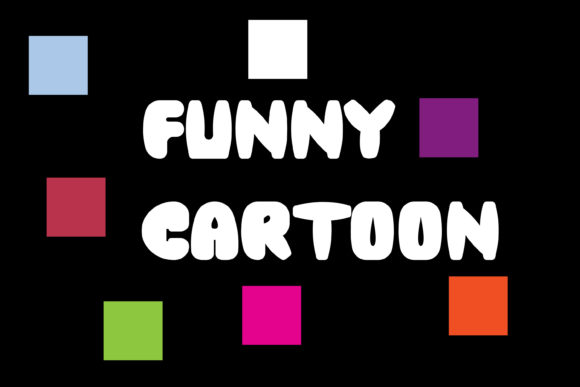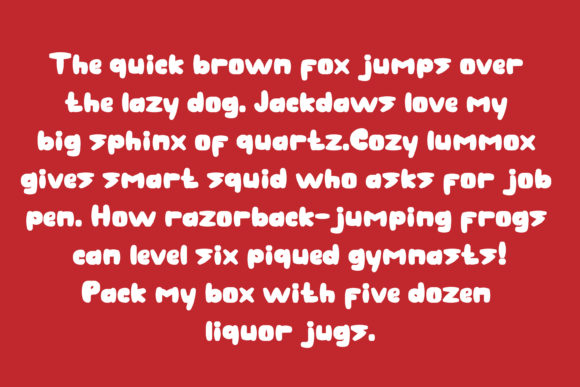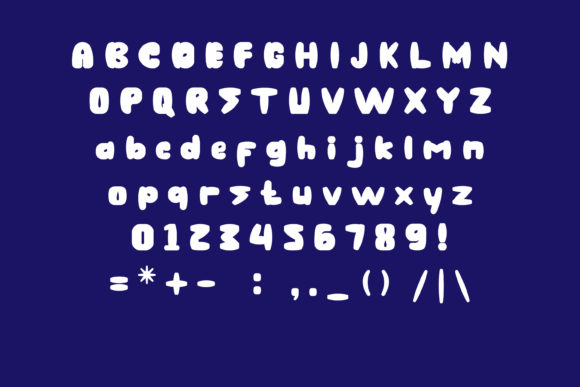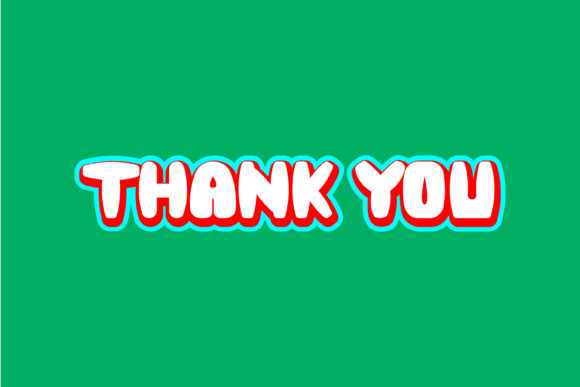
The Ultimate Guide to Ghemuck Font: A Cool, Robotic Display Font
I’ll never forget the time I was working on a project for a sportswear brand, and I just couldn’t find the right font to capture their edgy, high-tech vibe. The client wanted something bold, futuristic, and attention-grabbing, but everything I tried seemed to fall flat. That’s when I stumbled upon Ghemuck Font, and it was love at first sight! 💡
In this article, we’ll dive into the world of Ghemuck Font, exploring its features, uses, and everything in between. Whether you’re a designer, crafter, or creative hobbyist, you’ll learn how to make the most of this amazing font.
An Honest Review of Ghemuck Font
What I Love About Ghemuck Font
- ✨ Unique and eye-catching design: Ghemuck Font is a game-changer for anyone looking to add a touch of futurism to their designs.
- ✅ High versatility: This font is perfect for a wide range of applications, from t-shirts and sportswear to logos, advertisements, and more.
- 💻 Easy to read: Despite its thick, bold letters, Ghemuck Font is surprisingly legible, even at smaller sizes.
While Ghemuck Font is an amazing addition to any design project, there are a few things to keep in mind:
- 🤔 Limited use in formal contexts: Due to its bold, futuristic design, Ghemuck Font might not be the best choice for formal or traditional projects.
- ⚠️ May not work well with serif fonts: Ghemuck Font’s bold, sans-serif design might clash with serif fonts, so it’s best to pair it with similar font styles.
The Backstory of Ghemuck Font
While the origins of Ghemuck Font are shrouded in mystery, it’s said to have been inspired by the futuristic landscapes of sci-fi movies and video games. The font’s creator, a talented designer with a passion for robotics and technology, aimed to capture the essence of a futuristic world in a single font.
Q: What is Ghemuck Font best used for?
A: Ghemuck Font is perfect for designs that require a bold, futuristic look, such as t-shirts, sportswear, logos, and advertisements.
Q: Is Ghemuck Font easy to read?
A: Yes, despite its thick, bold letters, Ghemuck Font is surprisingly legible, even at smaller sizes.